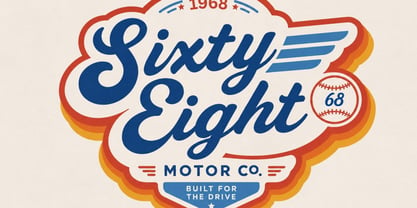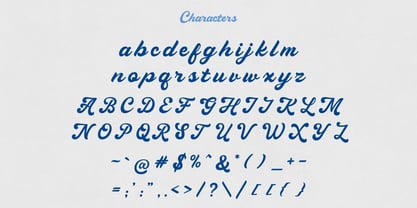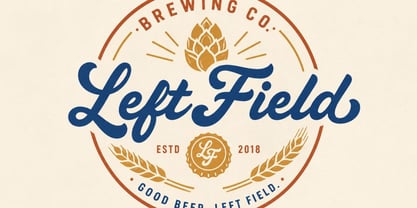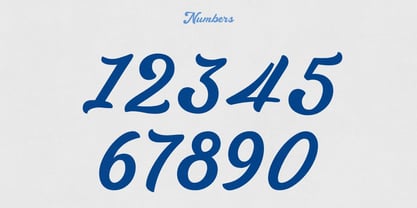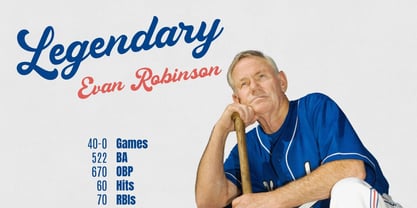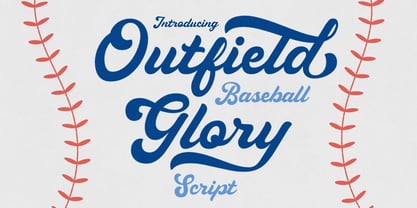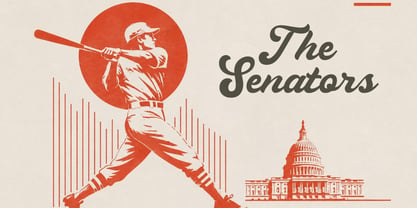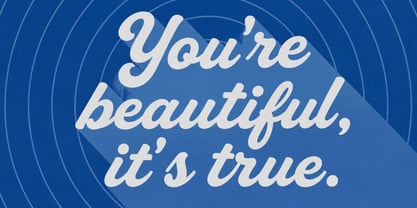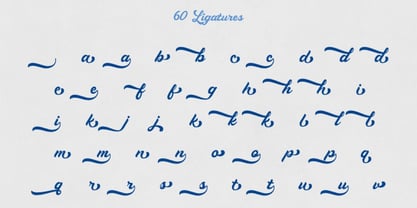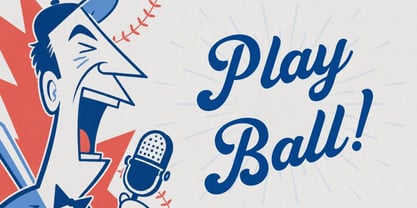
Outfield Glory
Step up to the plate with Outfield Glory, a bold vintage script typeface inspired by classic American baseball, mid-century sports graphics, hand-painted team signage, and timeless retro advertising.
With its confident curves, energetic letterforms, and authentic old-school character, Outfield Glory captures the excitement of packed stadiums, legendary ball clubs, vintage scorecards, and handcrafted athletic branding. Every word feels powerful, nostalgic, and ready for game day.
The included bonus swashes make it easy to create professional hand-lettered compositions in seconds. Add sweeping underlines, extended strokes, and decorative finishing touches to transform simple wording into distinctive logos, apparel graphics, badges, headlines, and merchandise designs.
Outfield Glory is an excellent choice for baseball teams, sports brands, apparel designers, crafters, small businesses, and anyone looking to bring authentic American sporting heritage into their work. Its bold presence remains highly readable while delivering the personality and movement expected from a premium vintage script.
Use Outfield Glory for baseball logos, team jerseys, T-shirts, hats, posters, product packaging, handwritten quotes, social media graphics, greeting cards, sports merchandise, event promotions, signage, stickers, and retro-inspired branding.
Whether you are building a complete team identity or creating one unforgettable headline, Outfield Glory brings championship-level character to every design.